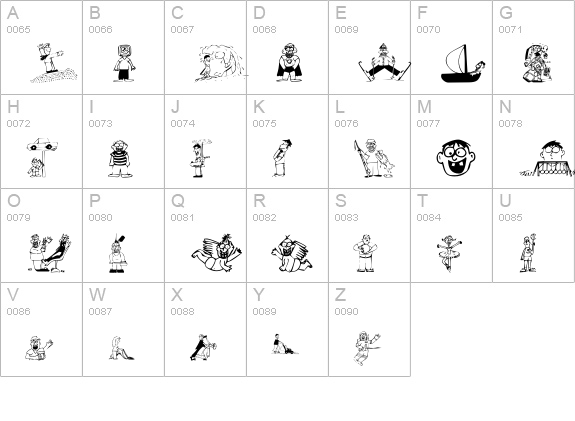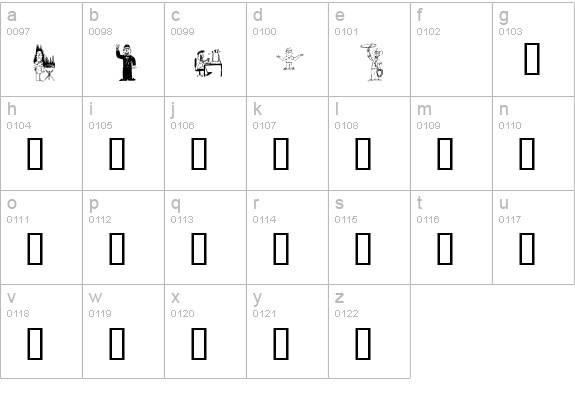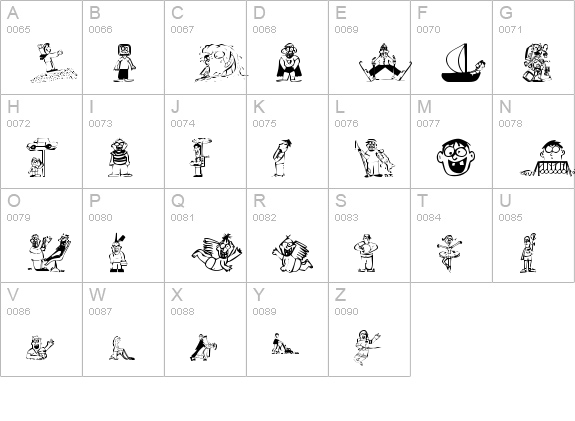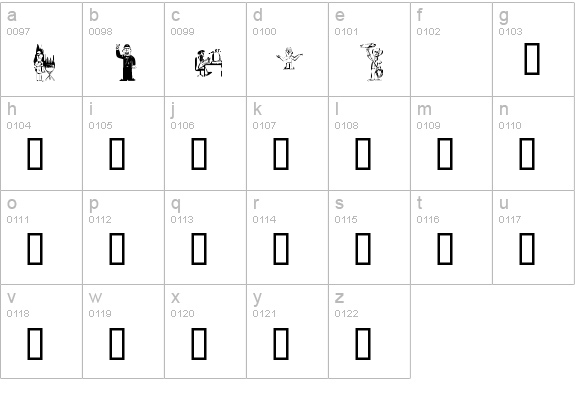
KR Silly Art People Font Details
KR Silly Art People font is a whimsical and playful typeface that is sure to bring a smile to your designs. With its quirky characters and unique design, this font is perfect for adding a touch of fun and creativity to any project. Whether you're working on a poster, logo, or greeting card, KR Silly Art People font is sure to stand out and make a statement. Best of all, this font is available for free download at FontsMarket.com. Simply visit the website and download KR Silly Art People font to start using it in your projects today. Let your imagination run wild with this delightful and charming font that is sure to capture the hearts of your audience.